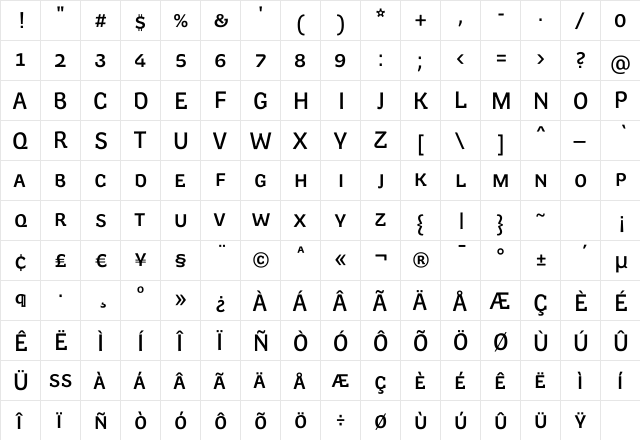
SpotkaMedium SC Regular Font Preview
SpotkaMedium SC Regular
SpotkaMedium SC Regular Font Details
Design Context for SpotkaMedium SC Typeface
SpotkaMedium SC takes a measured approach to typography — its balanced proportions and neutral character make it a reliable workhorse for both digital and print work.